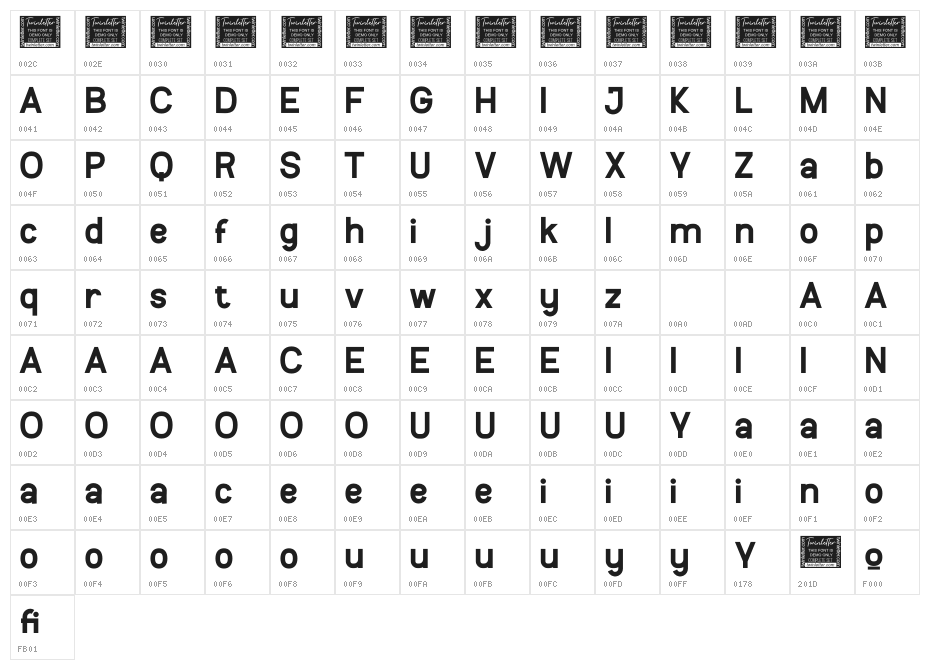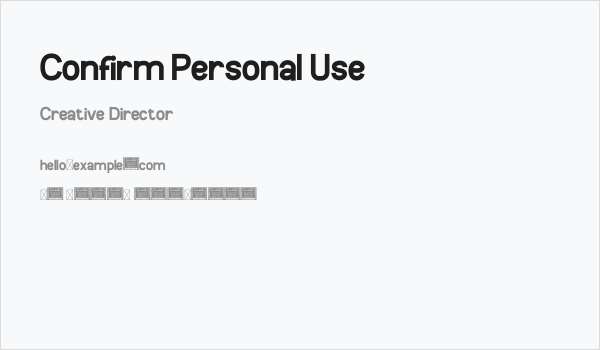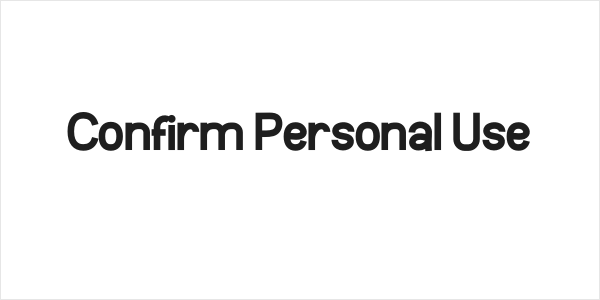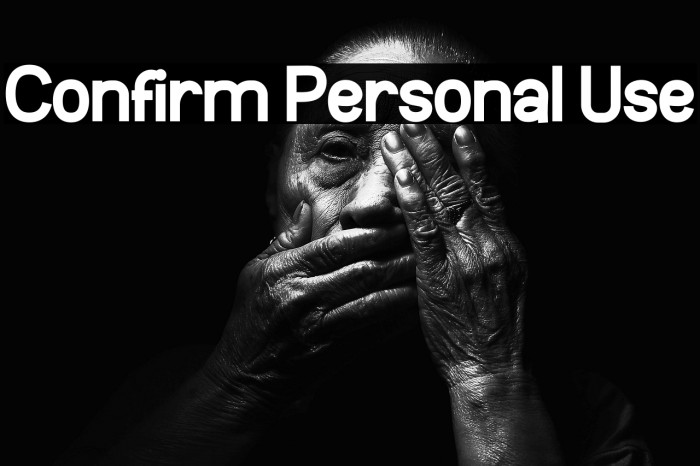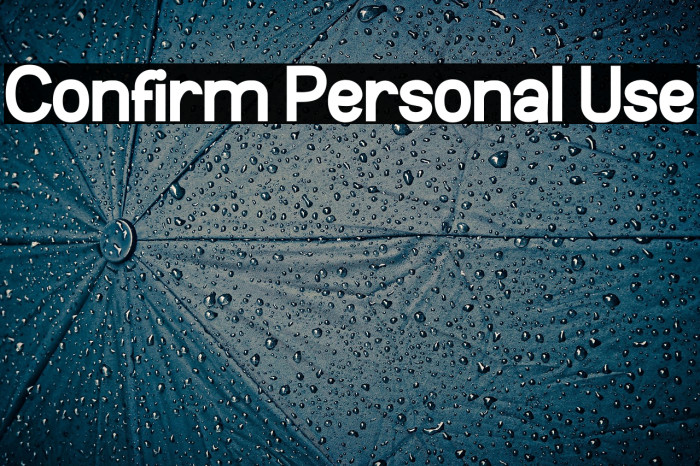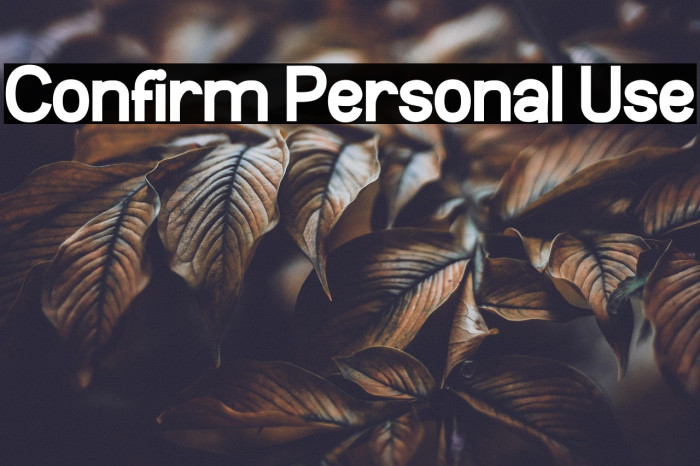
Confirm Personal Use Font
| 用途 | Headlines, Logos, Branding |
| おすすめプロジェクト | Ideal for branding, advertising, headlines, and digital content where clarity and impact are essential. |